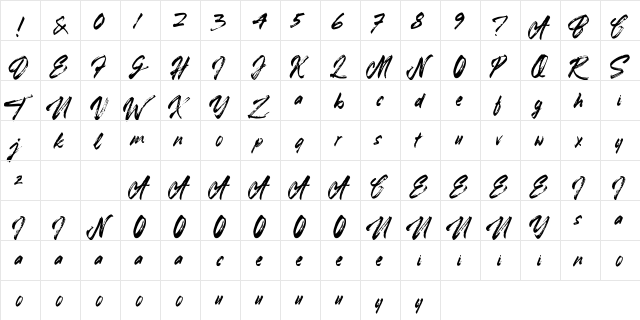
Youth Brush Daylight Regular
Design Context for Youth Brush Daylight Typeface
Youth Brush Daylight brings a calligraphic fluidity to the page — its connecting strokes and expressive curves give it an unmistakably human quality. Its slender proportions lend an understated elegance to any composition.
Font Pairing: Combine Youth Brush Daylight with a simple geometric sans for maximum contrast — the tension between flowing curves and clean structure is a classic typographic pairing.
Pro Tip: Use Youth Brush Daylight for short runs of text — names, titles, or taglines. Extended body copy in script faces tires the eye quickly.